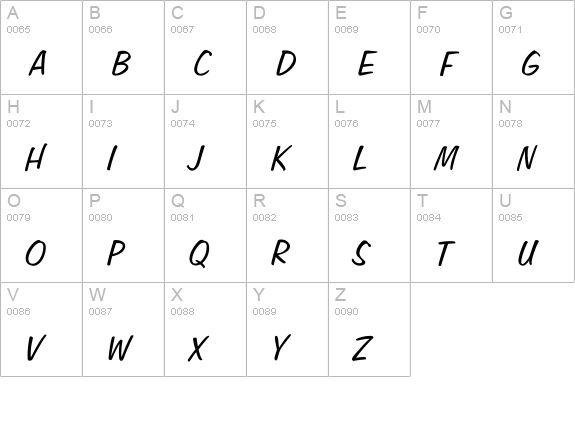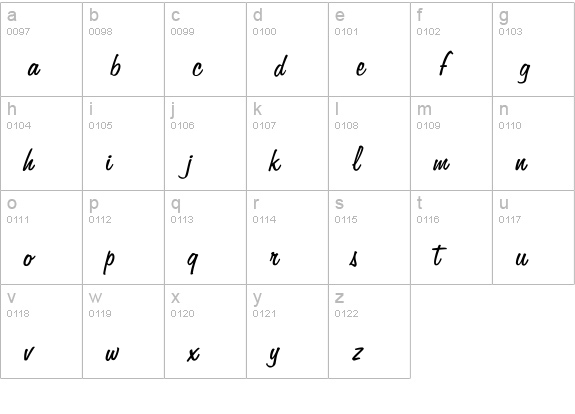
Freehand575 Font Details
The Freehand575 font exudes a sense of creative freedom and unrestricted expression in every stroke. Its fluid lines and whimsical curves give your designs a unique and handcrafted touch, making them stand out from the crowd. Whether you're working on a logo, invitation, or poster, this font adds a touch of artistic flair and charm to your projects. Best of all, Freehand575 is freely available for download at FontsMarket.com, allowing you to unleash your creativity without any constraints. Embrace the freedom of design with this delightful and versatile font that brings a touch of hand-drawn elegance to your work.